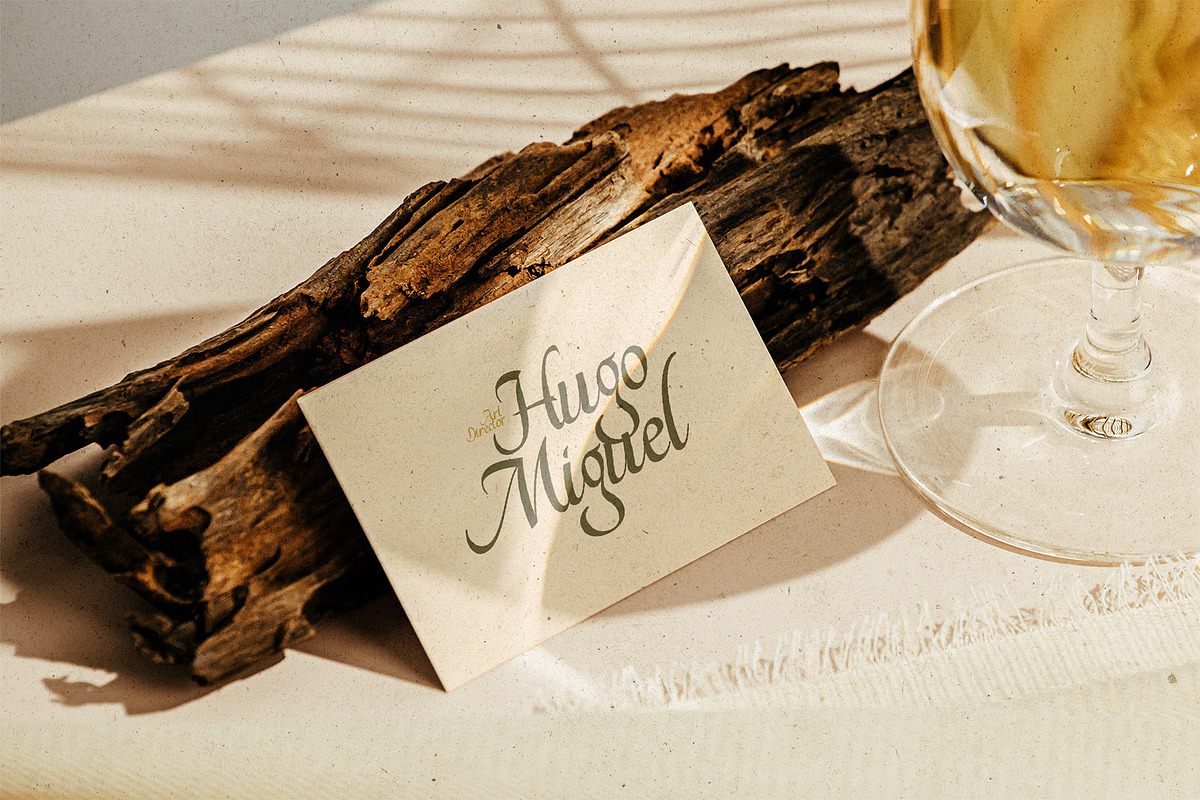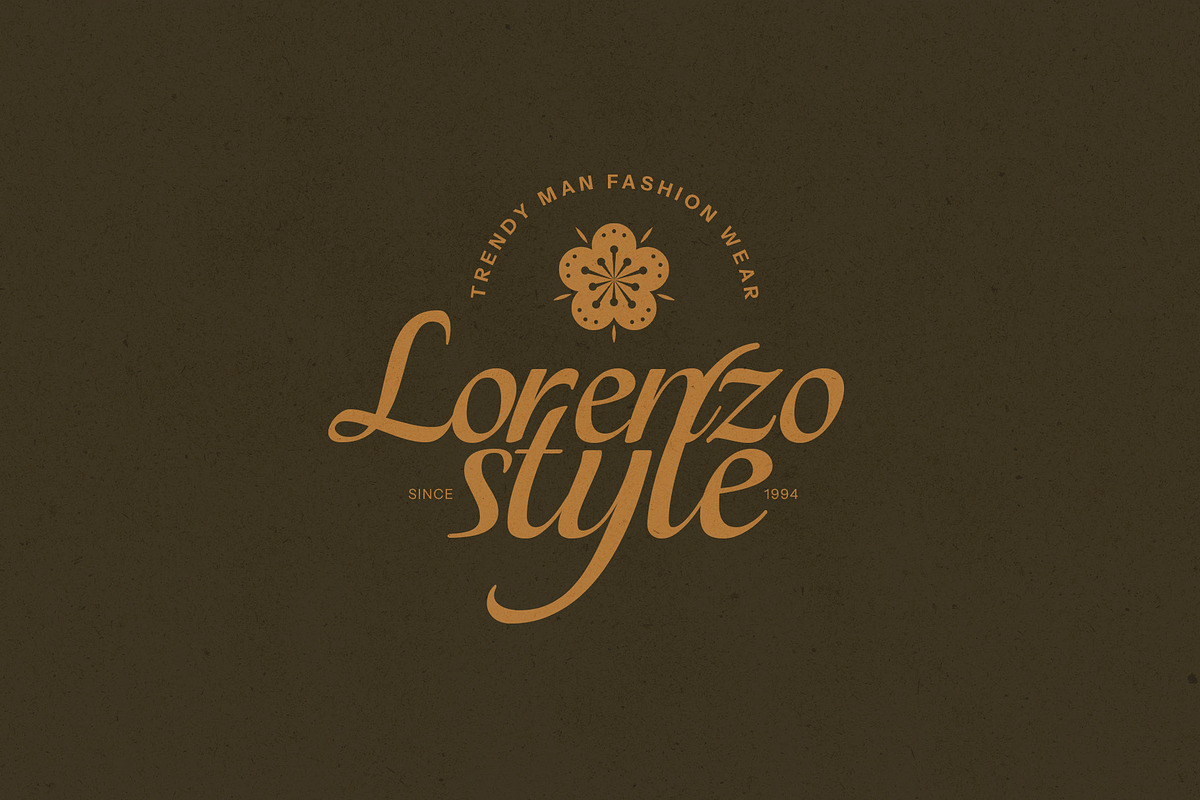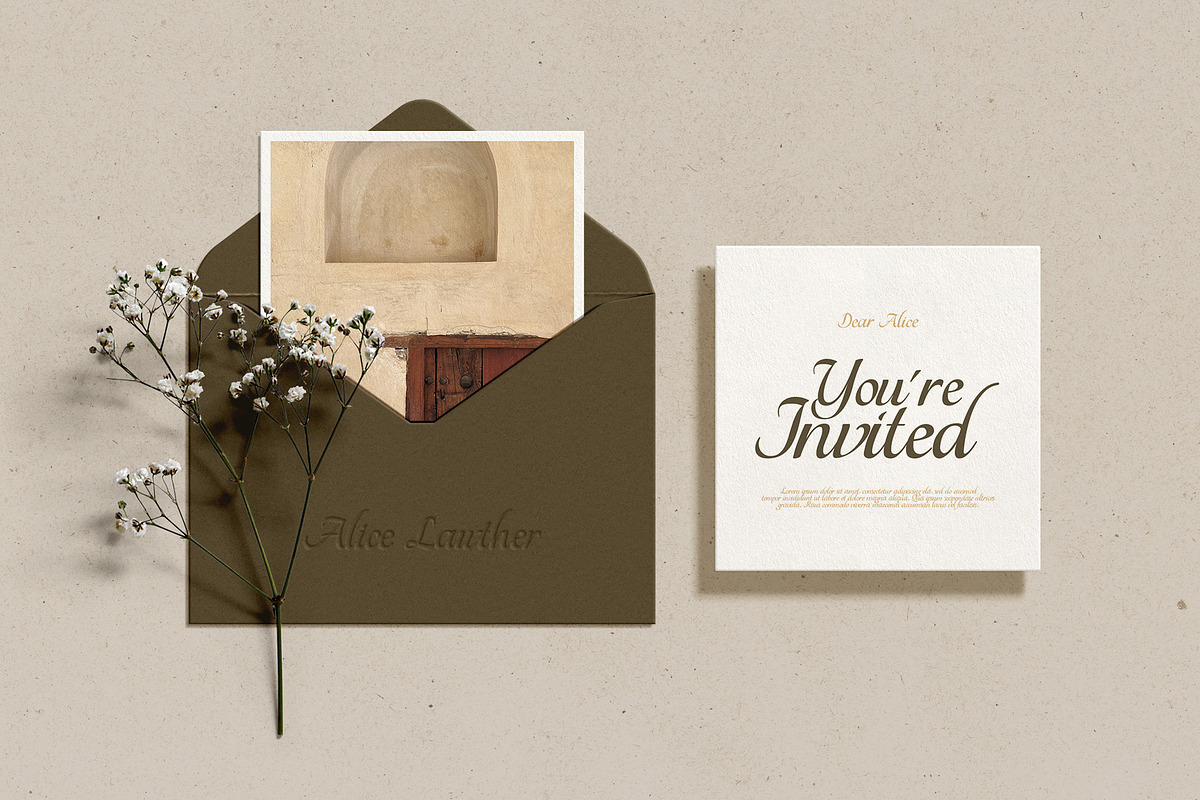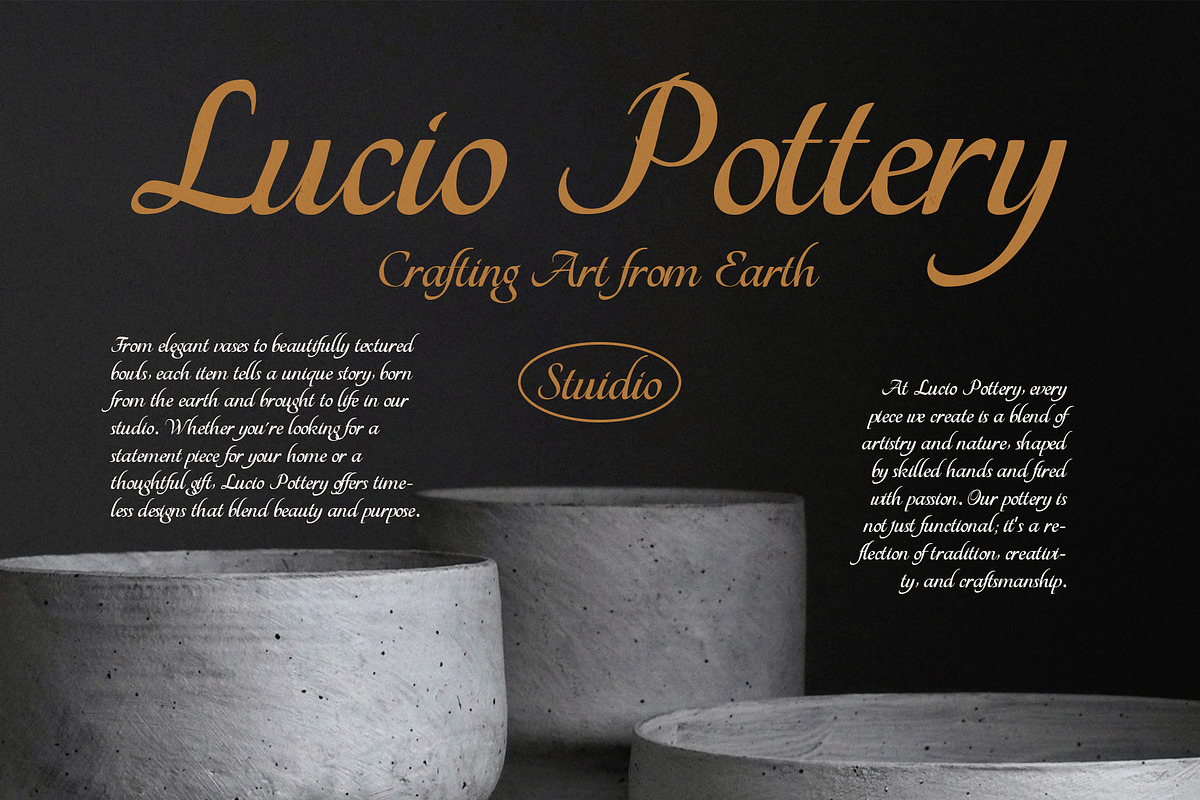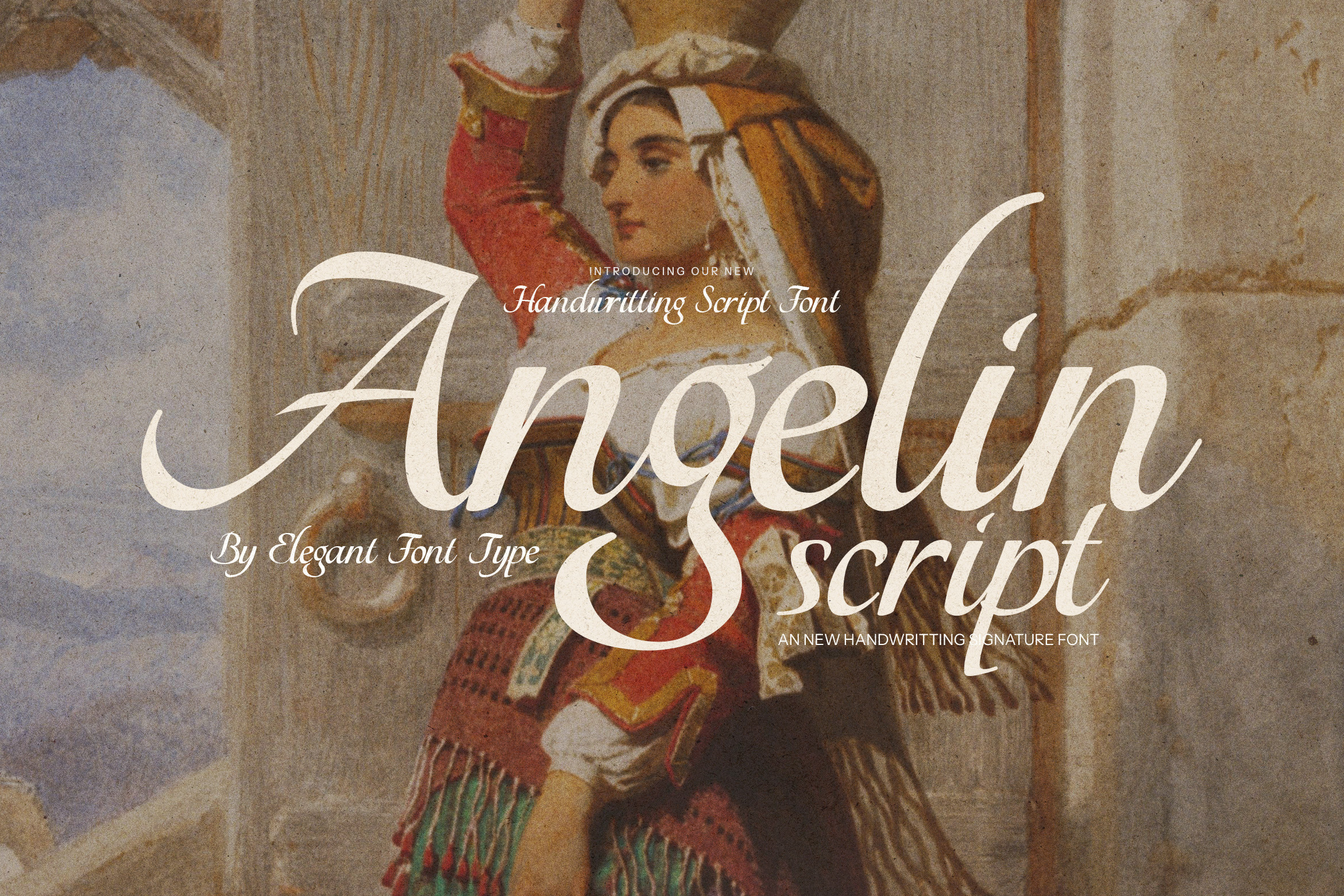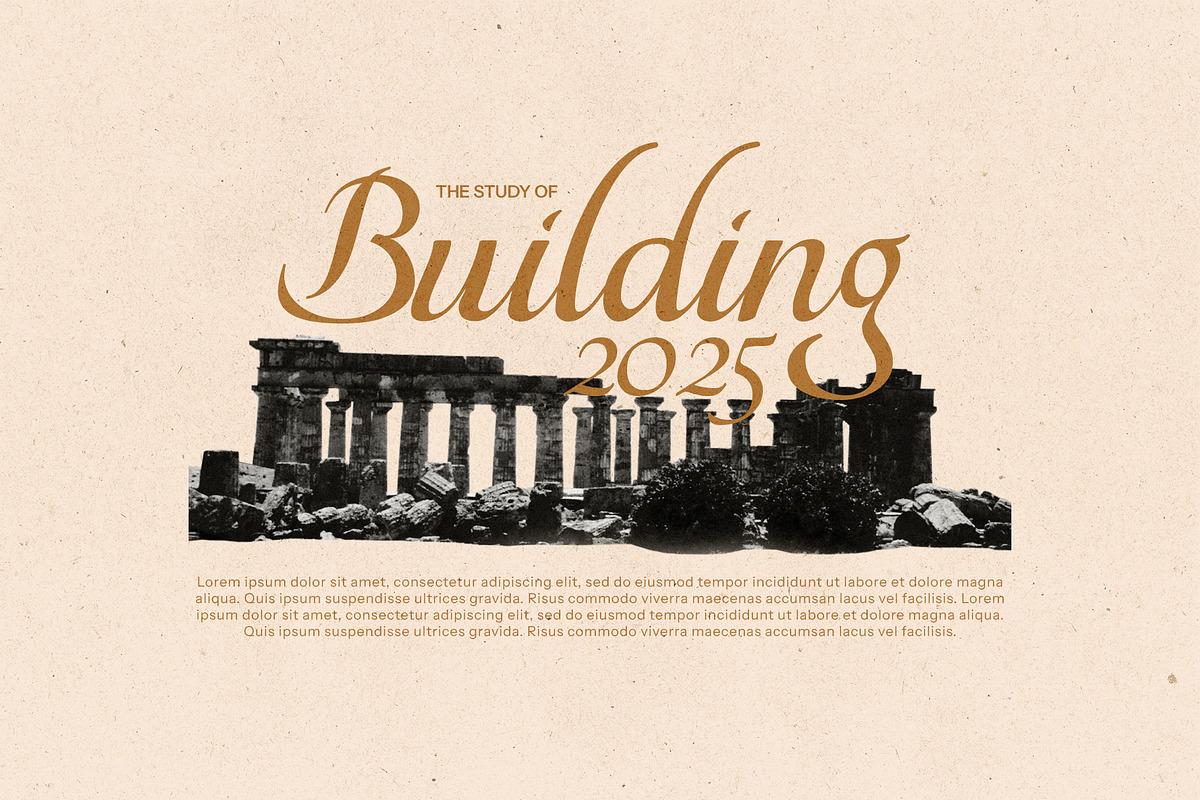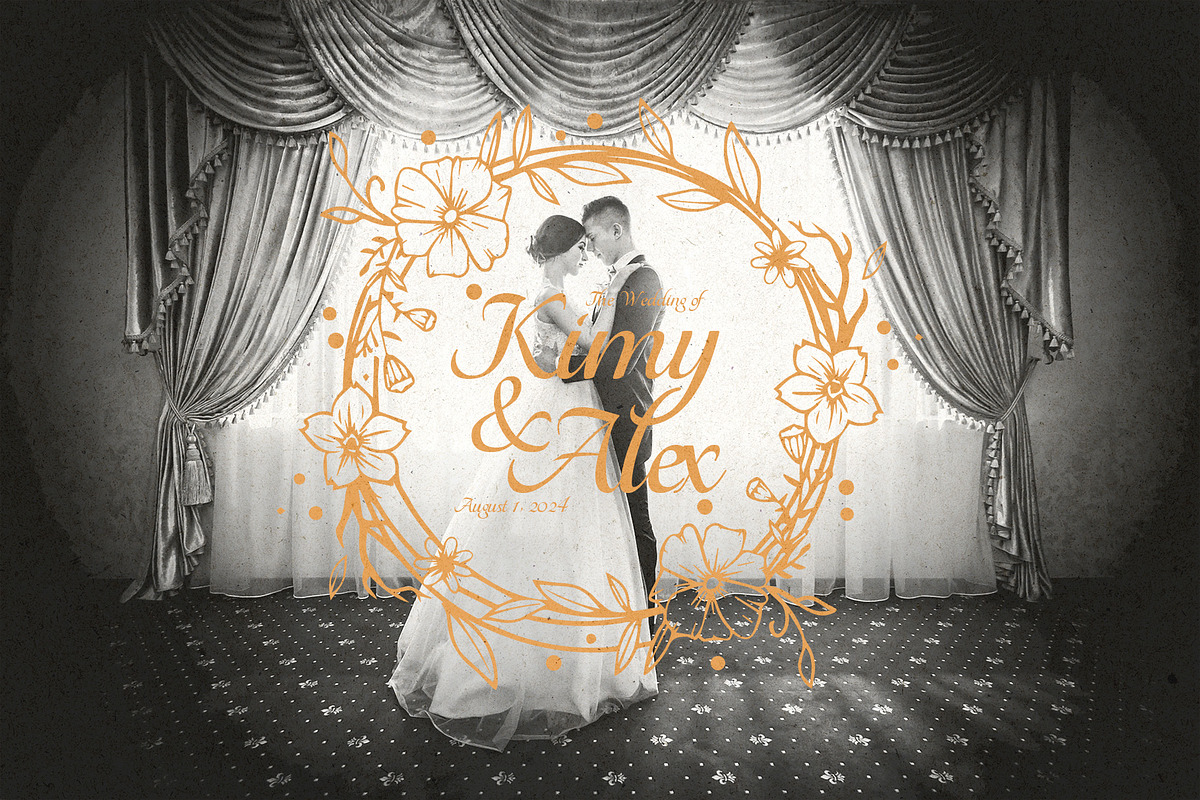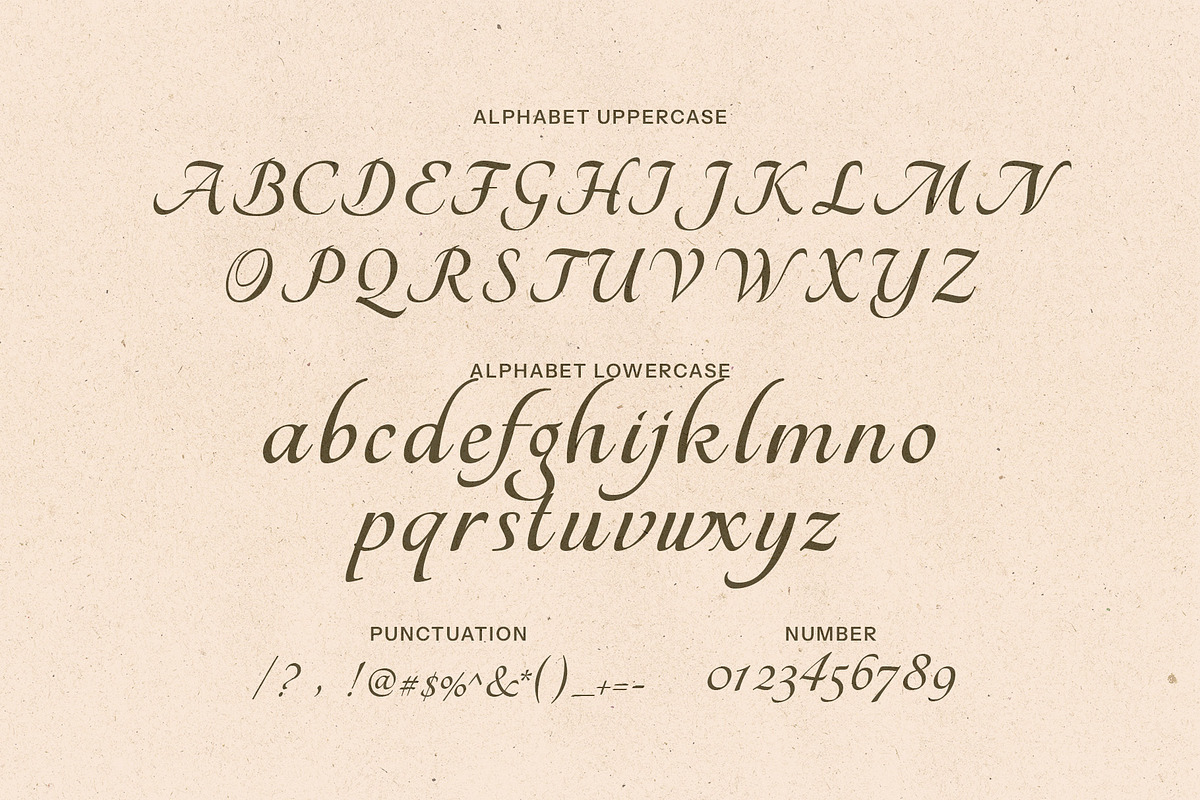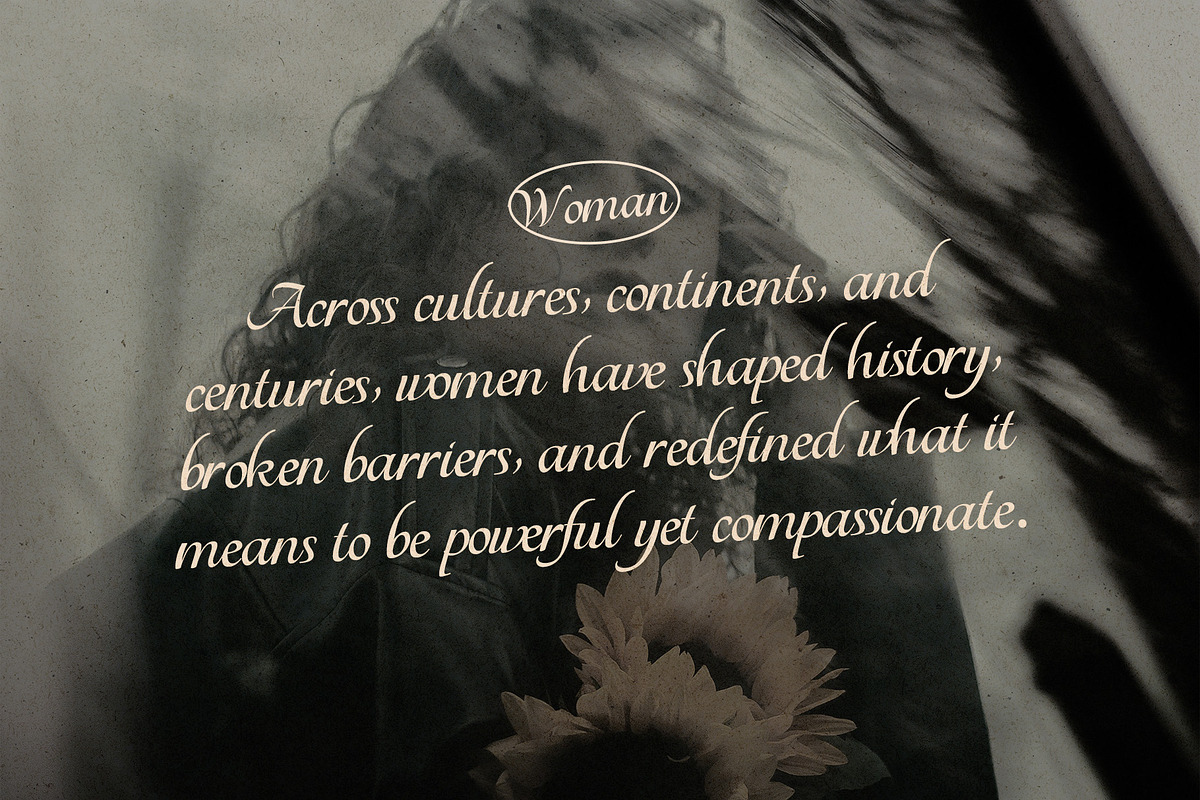
Angelin Script Font
Angelin Script Font is a stunningly elegant and refined handwritten typeface that brings a touch of timeless beauty to every design. Crafted with graceful curves and fluid strokes, Angelin exudes sophistication while maintaining a warm, approachable charm. Its delicate balance of style and readability makes it a perfect choice for designers seeking a luxurious and personalized touch.
Designed with versatility in mind, Angelin is ideal for wedding invitations, branding, logo design, album covers, magazines, and event stationery. The font includes a variety of calligraphic alternates, swashes, and ligatures, allowing you to create designs that are as unique as your message. Whether you're working on business cards, social media graphics, posters, or website headers, Angelin will help your content stand out with elegance and clarity.
Its flowing script style mimics natural handwriting, giving every project a bespoke and romantic feel. This makes it especially suited for bridal branding, fashion lookbooks, boutique packaging, music-related designs, and luxury product labels. The font adapts beautifully across digital and print formats, ensuring your designs retain their charm and professionalism everywhere.
Whether you're designing a heartfelt invitation, an eye-catching brand identity, or a stylish editorial spread, Angelin Script Font delivers an elevated, handcrafted aesthetic that leaves a lasting impression. Let your typography speak with elegance, and transform your ideas into beautiful visual stories.
Step into the world of modern calligraphy with Angelin—where every letter flows like poetry and every design becomes a work of art.